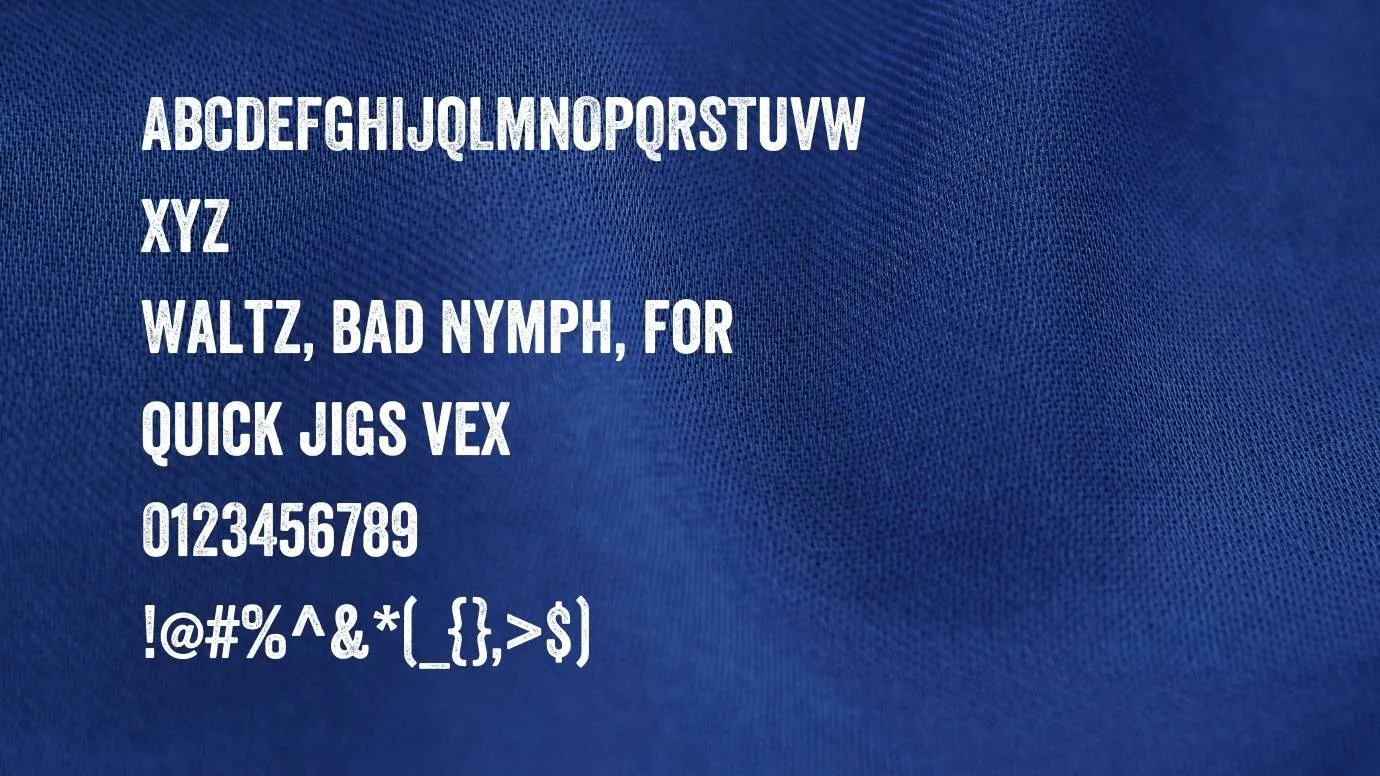
The Veneer Font is a Sans-serif typeface that was created in 2012. It features hand-written letters with a unique ancient and vintage feel. This font includes 8 distinct styles and 3 impressive weights: regular, two, and three. The regular weight has fewer characters compared to the three weight. Veneer Font is well-known for its excellent pairing capabilities.
Designer of Veneer Font
This is a Sans-serif typeface that was designed by Ryan Martinson and published by Yellow Design Studio in 2012.
This font family comes with 8 different styles and 3 amazing weights such as Veneer Regular, Veneer Italic, Veneer Three Regular.
- Veneer Two Regular
- Veneer Three Italic
- Veneer Two Italic
- Veneer Extra Regular
- Veneer Extra Italic
This font comes with a set of different beautiful characters and glyphs that make this font very perfect for designing purposes.
View of Veneer Font
| Name | Veneer Font |
| Style | Sans-serif |
| Designer | Ryan Martinson |
What Kind of font is Venner?
This is a classic typeface that belongs to the Sans-serif typeface family and is designed by Ryan Martinson and published by Yellow Design Studio in 2012.
What’s the Closest Font to Veneer Font?
There are many fonts similar to this font but Shredded Font is the closest to this font.